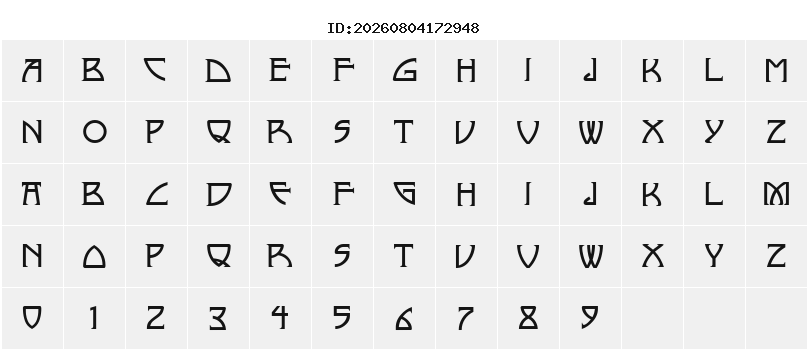
About Nickley-NormalA.ttf
Nickley-NormalA.ttf is a modern, elegant sans-serif font designed for ultimate readability and visual harmony. Perfect for branding, headlines, web design, and print materials.